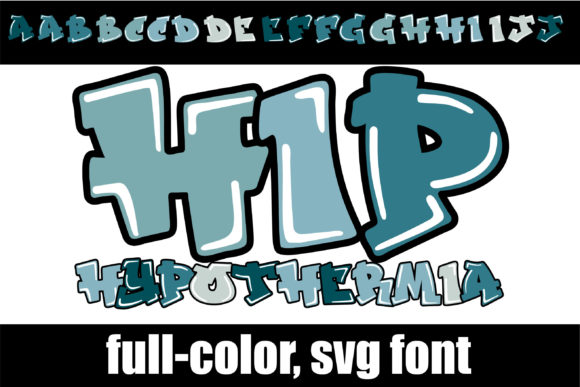
Introducing Hip Hypothermia Font – the perfect font for your winter design needs. Created by Illustration Ink, this colorful font features blue, graffiti-like lettering that is sure to catch the eye. With its unique design, Hip Hypothermia Font is perfect for titles, displays, posters, and much more.
Hip Hypothermia Font is not only aesthetically pleasing, but it also adds emotion to your design. The bold blue color of the font can evoke feelings of serenity, calmness, and relaxation. This makes it the perfect font for winter-themed designs, where you want to capture the feeling of a cozy winter evening.
Don't settle for boring fonts this winter season. Choose Hip Hypothermia Font for your designs and add a pop of color and emotion to your work. The full-color design makes it perfect for catching the attention of your audience, while the emotional impact of the font can make your design stand out from the rest.